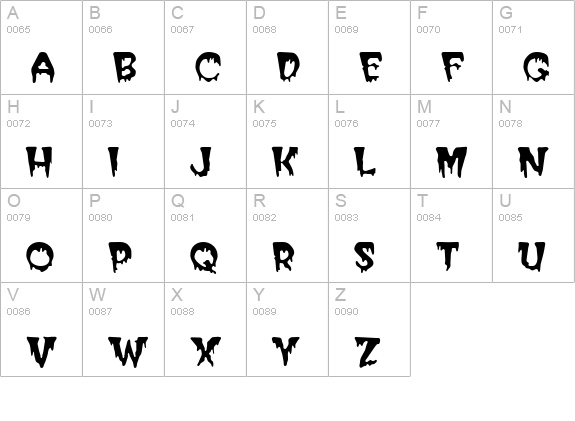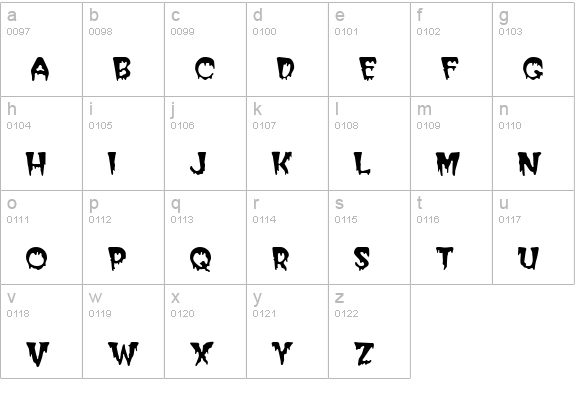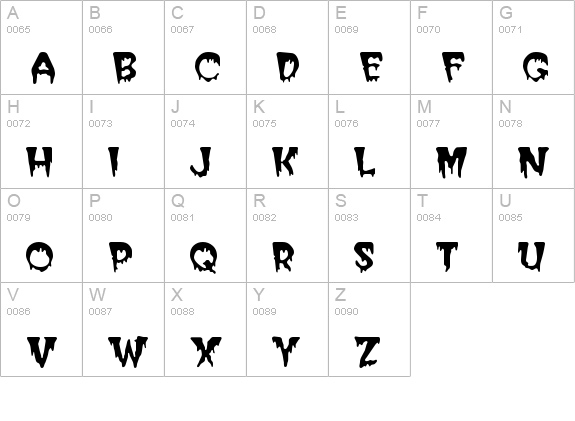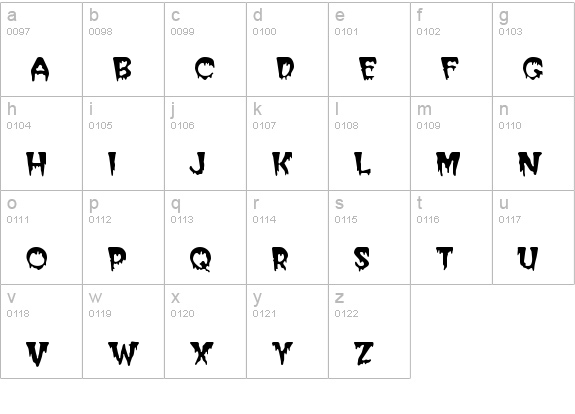
Halloween Font Details
Introducing the bewitching Halloween font, a frightfully fun typeface that will cast a spell on your designs! This hauntingly beautiful font is perfect for adding a touch of spookiness to your Halloween-themed projects. Its intricate, yet eerie letterforms are inspired by the creepy crawlies, witches' brews, and haunted mansions that define this chilling season. But the best part? This Halloween font is absolutely free! That's right, you don't need to reach into your cauldron of gold to enjoy this bone-chillingly fantastic typeface. It can be freely downloaded at FontsMarket.com, the ultimate destination for all your font needs. Whether you're creating party invitations, haunted house posters, or crafting spooky social media graphics, this Halloween font will elevate your designs to the next level of frightful delight. Its unique and playful characters will add personality and charm to any text, ensuring that your Halloween-themed creations stand out from the crowd. With its versatility and eye-catching appeal, this font will send shivers down your spine in the best way possible. It captures the essence of Halloween, effortlessly blending the eerie and the enchanting. So, embrace the spirit of the season and let this free Halloween font be your secret weapon for creating spine-chillingly good designs. Don't miss out on this limited-time offer! Head over to FontsMarket.com and grab this free Halloween font now. Unleash your creativity and watch as it brings your Halloween designs to life with a dash of ghostly magic. Get ready to make a statement that will leave everyone spellbound.